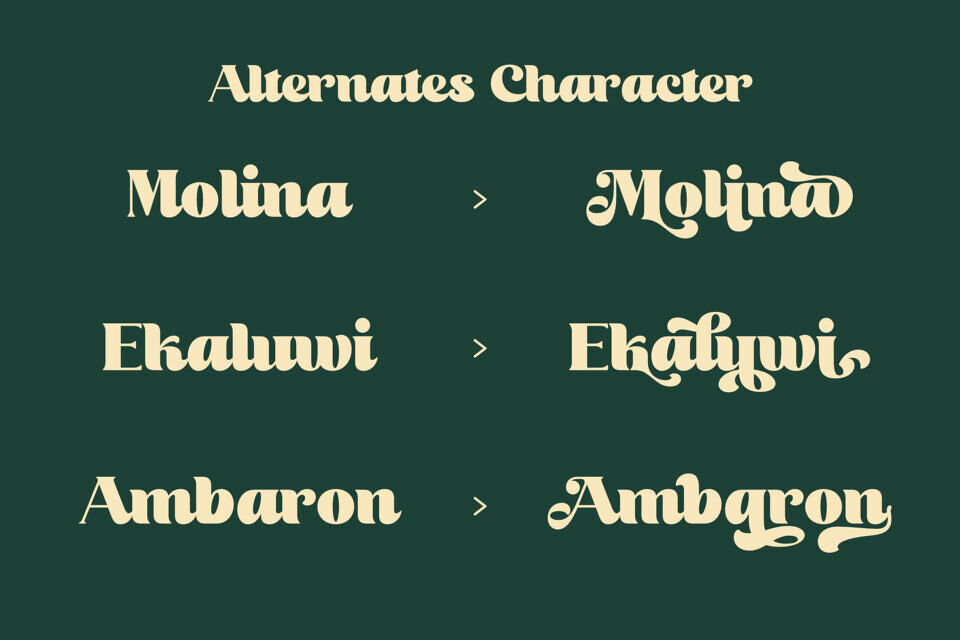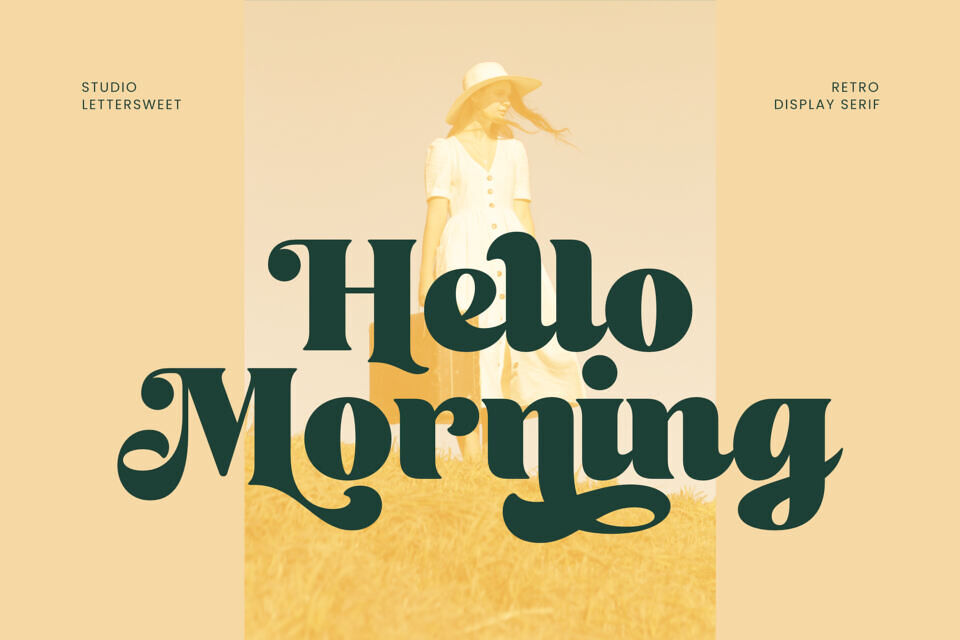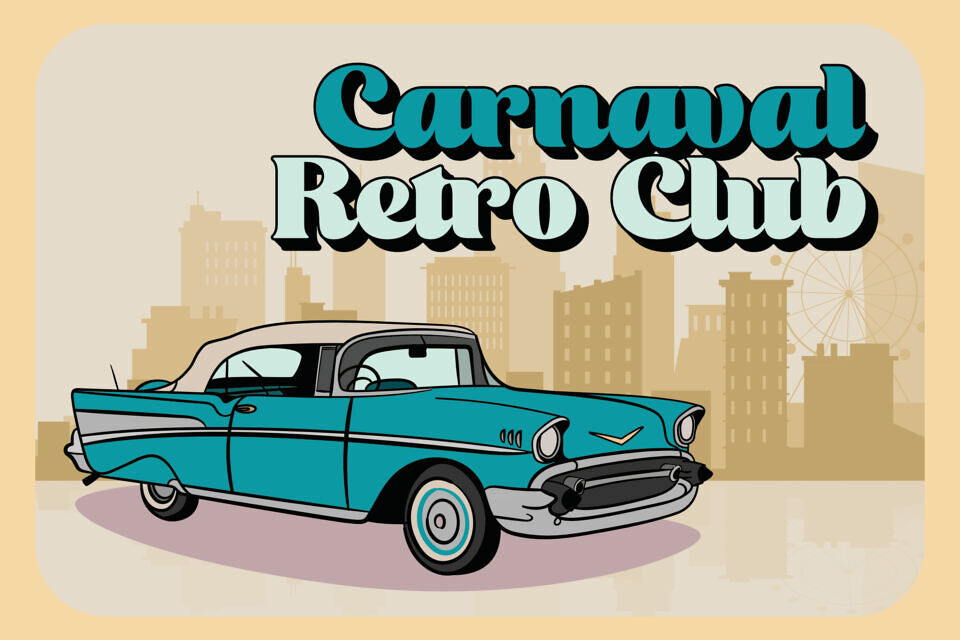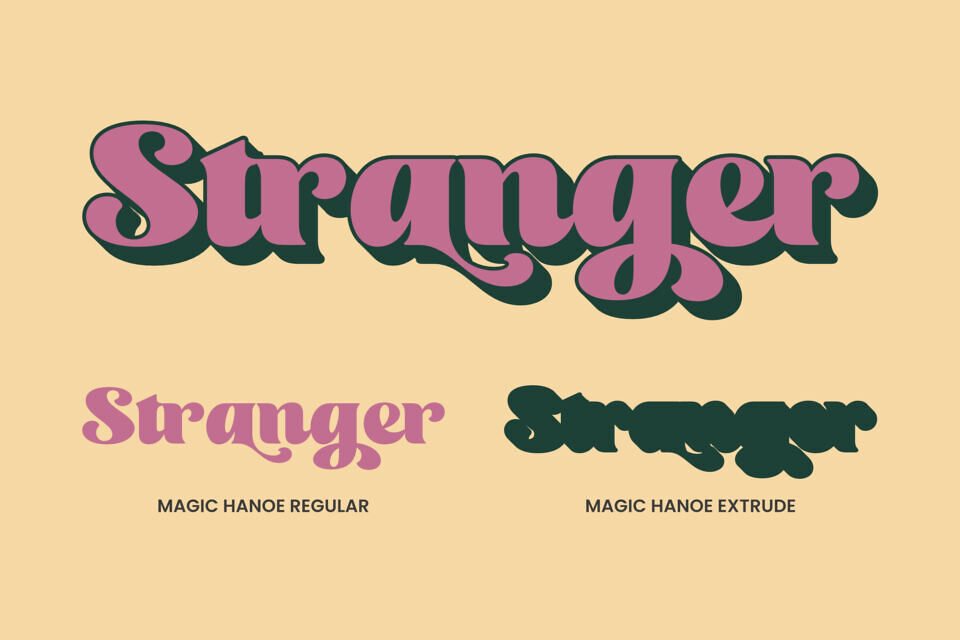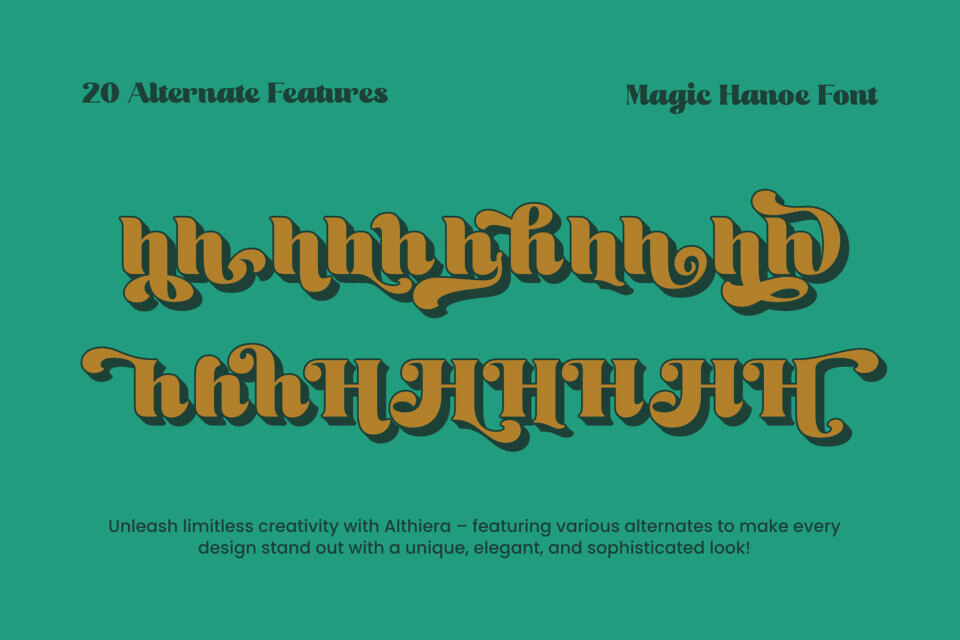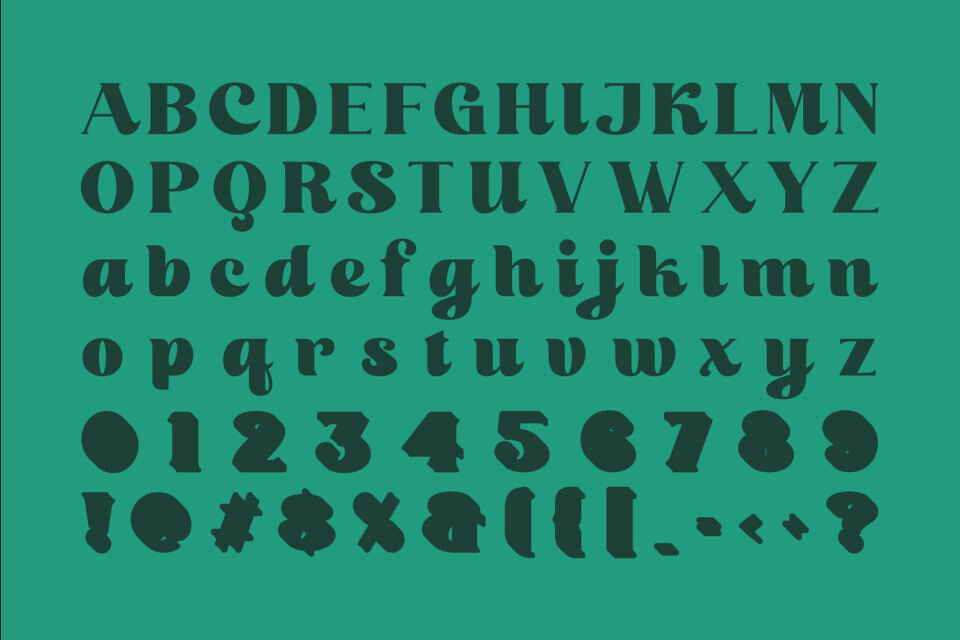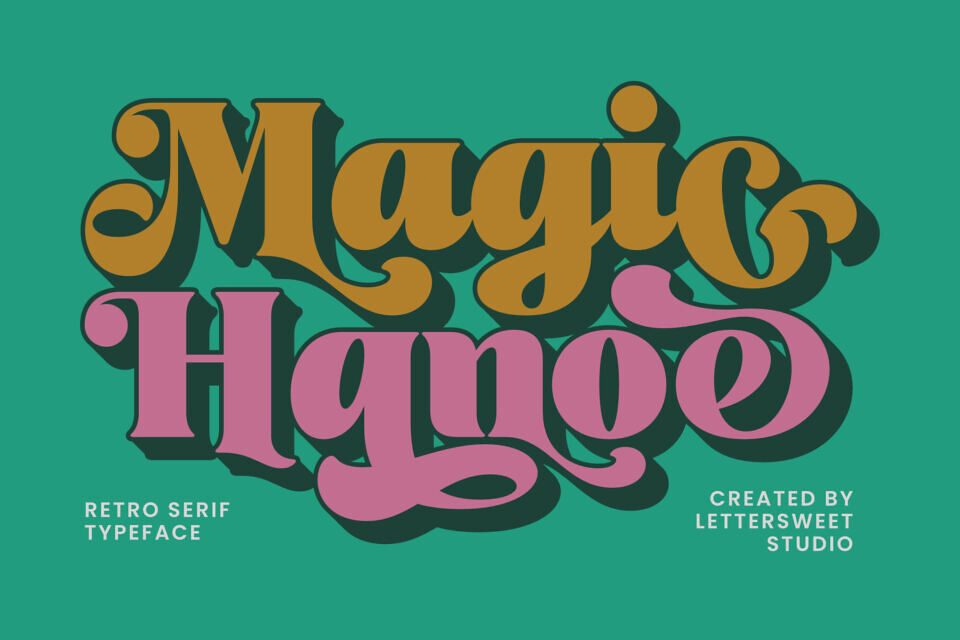
Magic Hanoe Font
Step into a world of classic charm with a modern twist through Magic Hanoe, a captivating retro serif font full of personality and flair! Created by Lettersweet Studio, this typeface features expressive curves, bold strokes, and playful vintage vibes that will make your designs truly stand out.
Perfect for creative projects like vintage posters, unique logos, product packaging, album covers, and retro-inspired branding. Magic Hanoe combines nostalgic style with contemporary energy, bringing a memorable touch to any visual concept.
Key Features:
• Bold and artistic retro serif style
• Includes uppercase and lowercase characters
• Great for headlines and character-rich design
• Versatile and easy to pair with various design themes